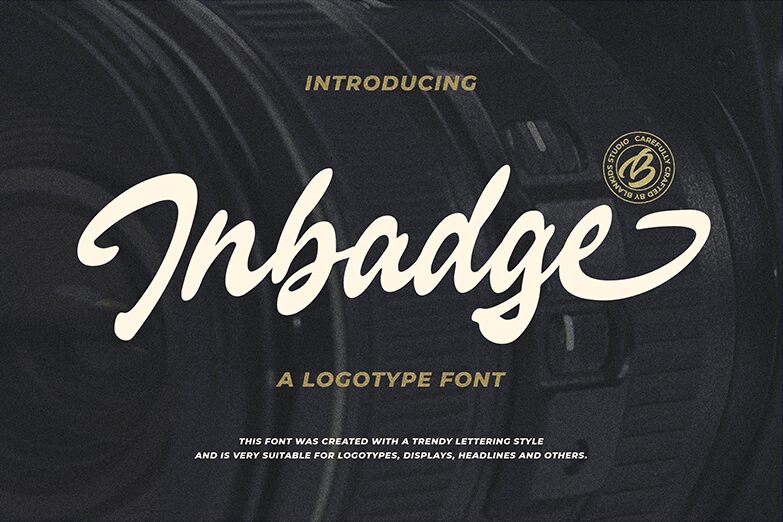
Inbadge Regular
Inbadge, a captivating creation by designer Bangkit Tri Setiadi, is a smooth brush font that exudes an air of sophistication and elegance. With its semi-bold weight and semi-condensed width, this font is perfect for projects that demand attention and creativity. Its flowing strokes and seamless curves make it ideal for logo designs, branding materials, and packaging. Inbadge adds a touch of refinement to headlines, posters, and invitations. Whether you're working on fashion campaigns or artistic ventures, this font will leave a lasting impression on your audience.